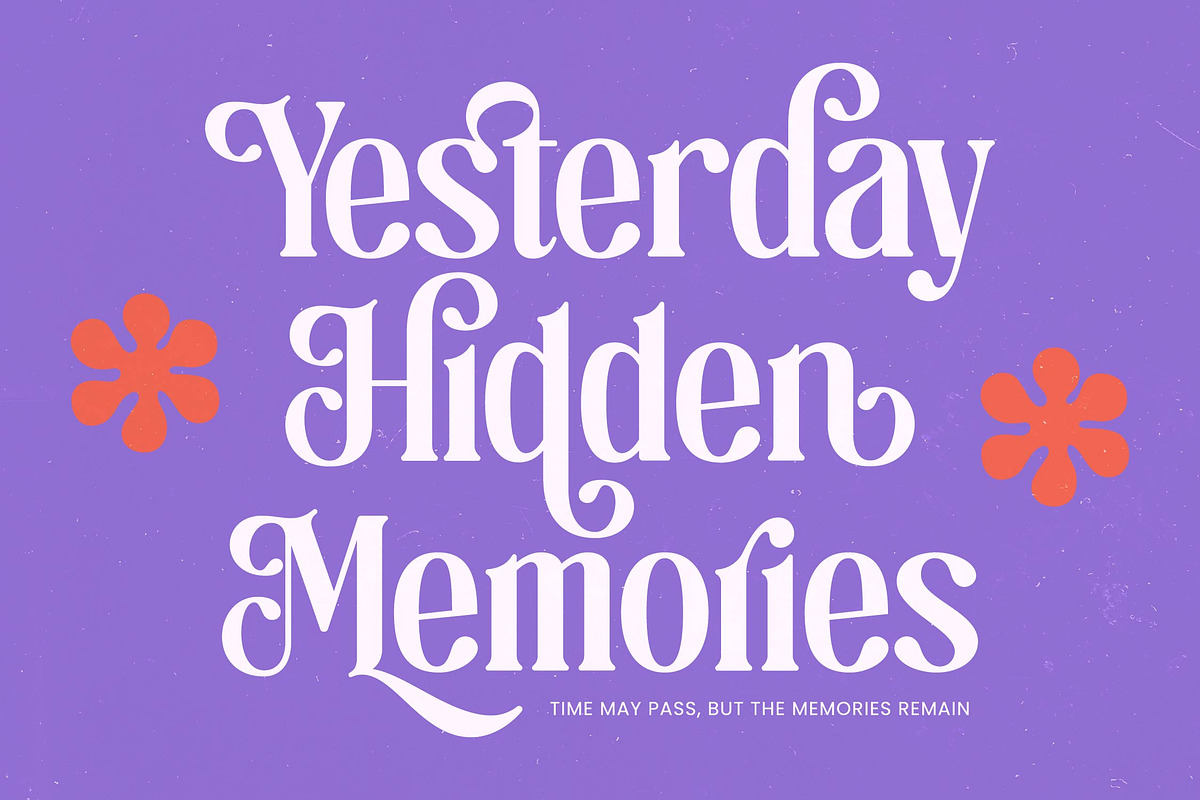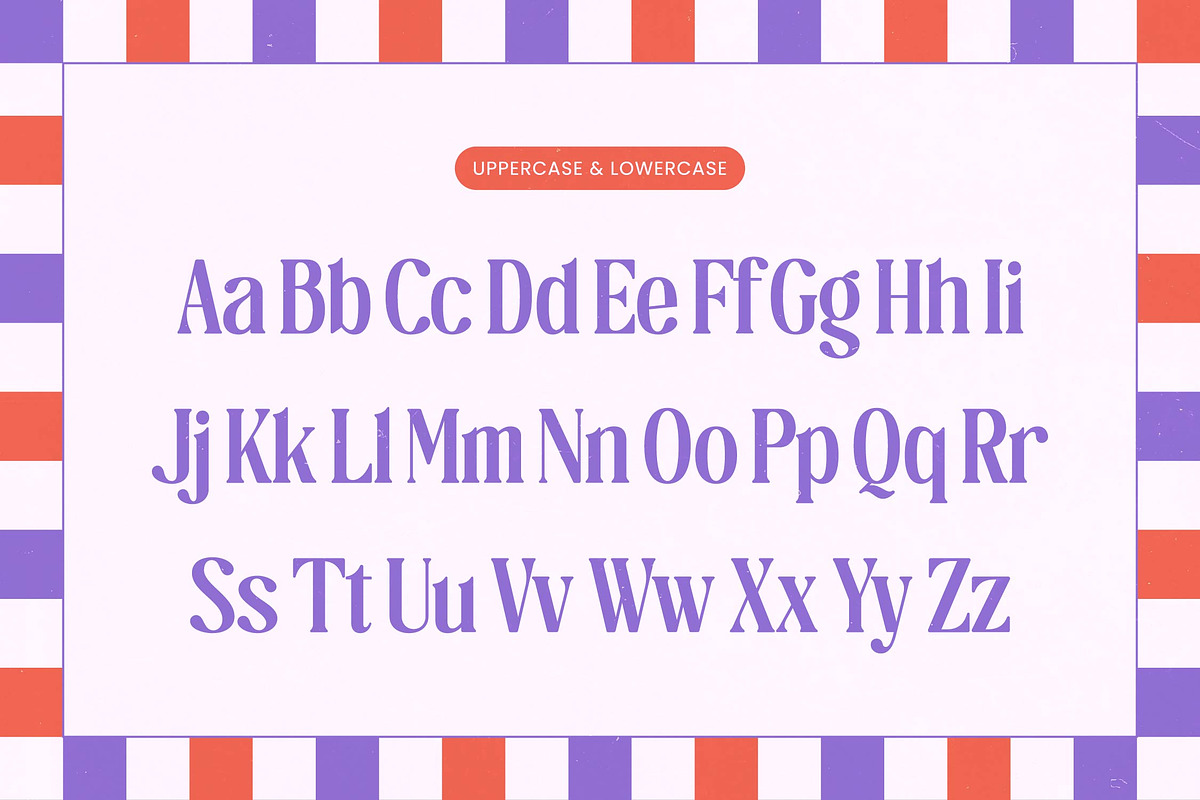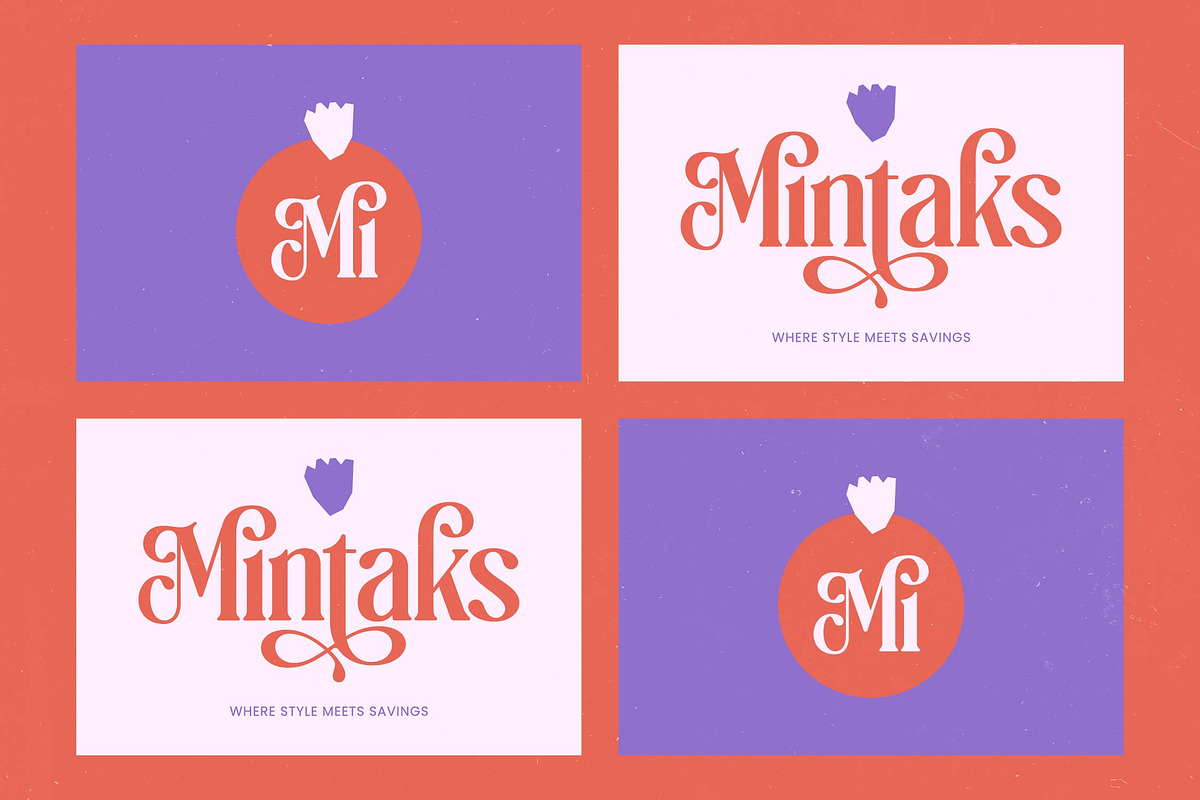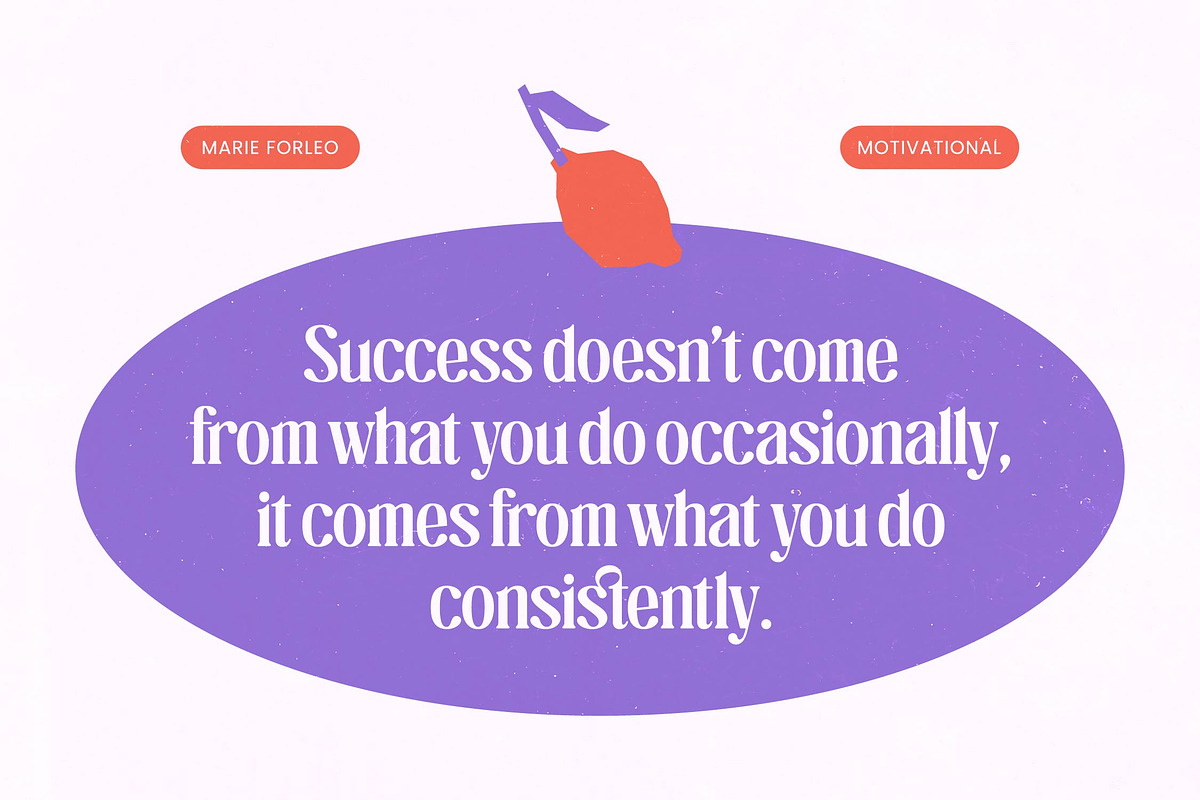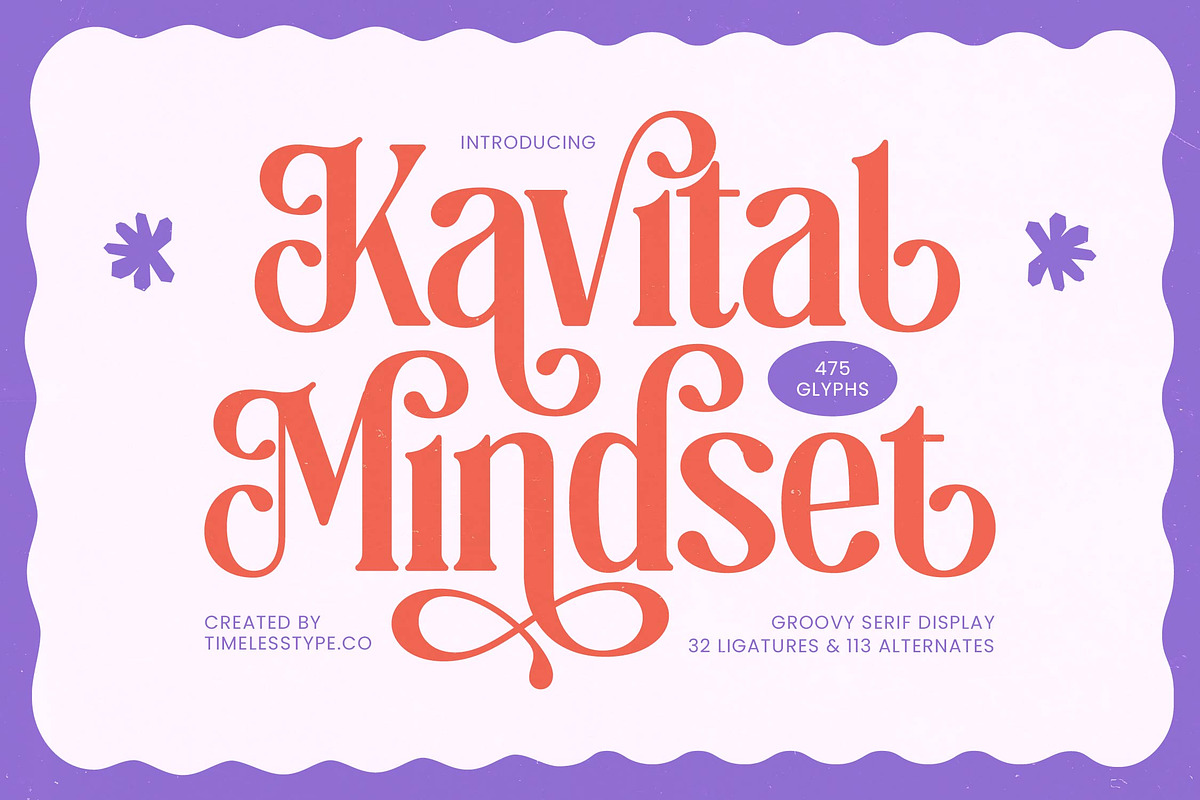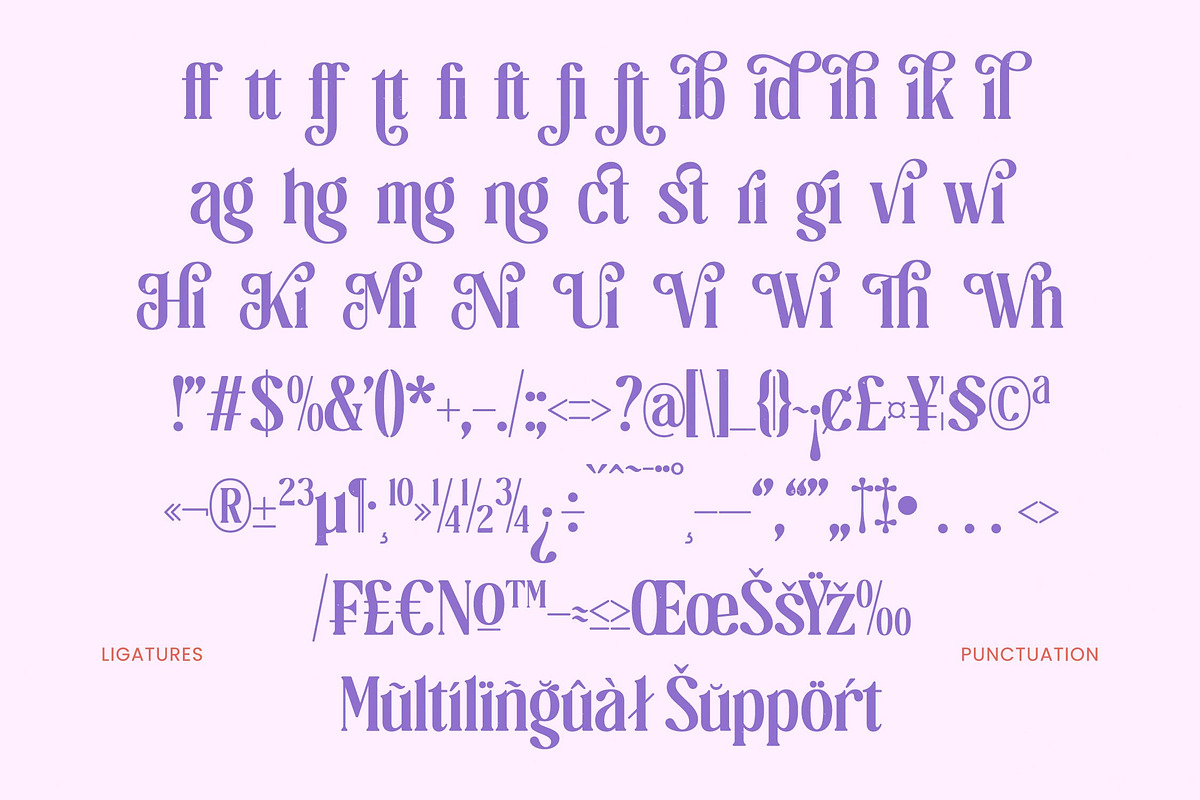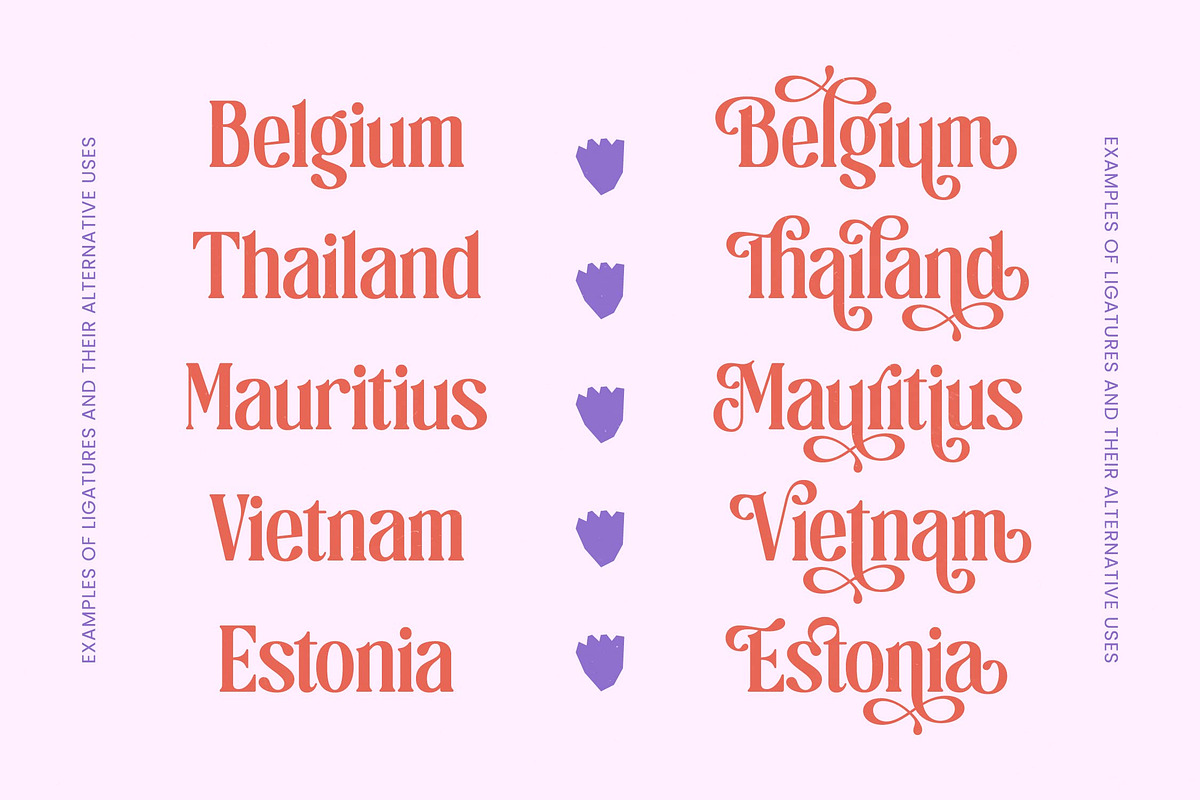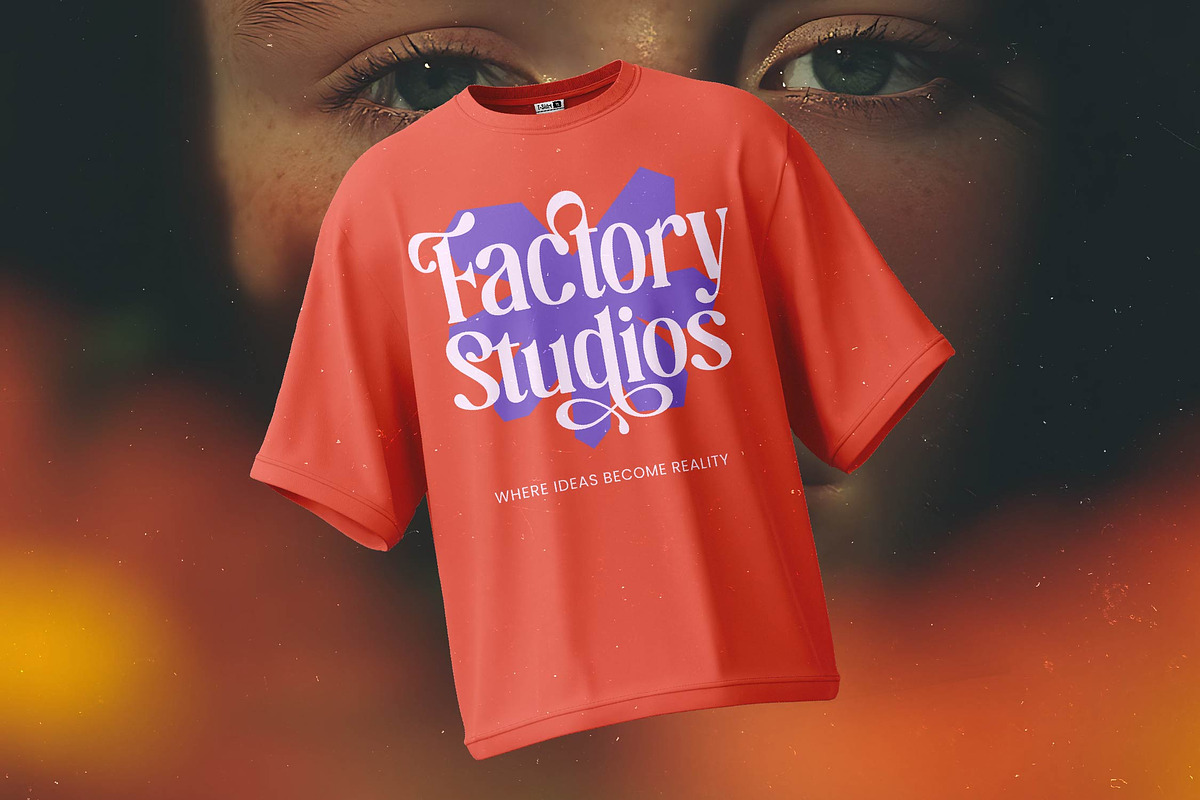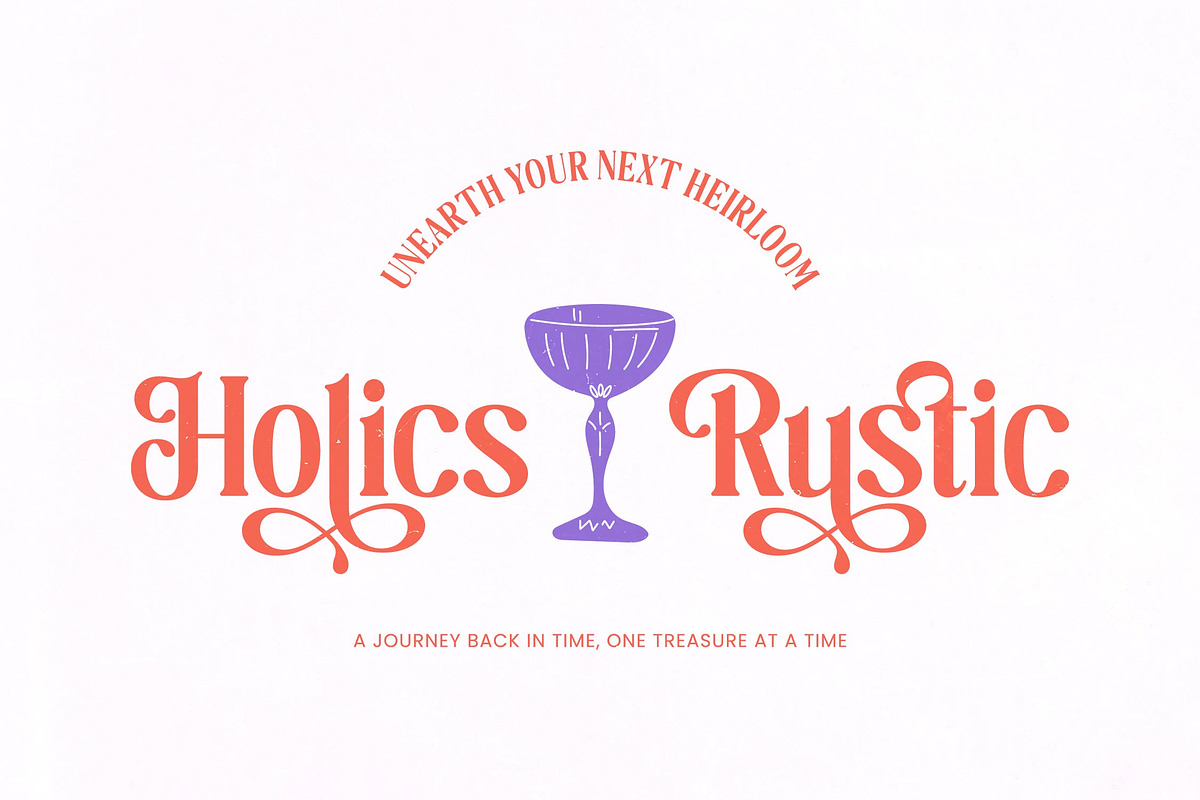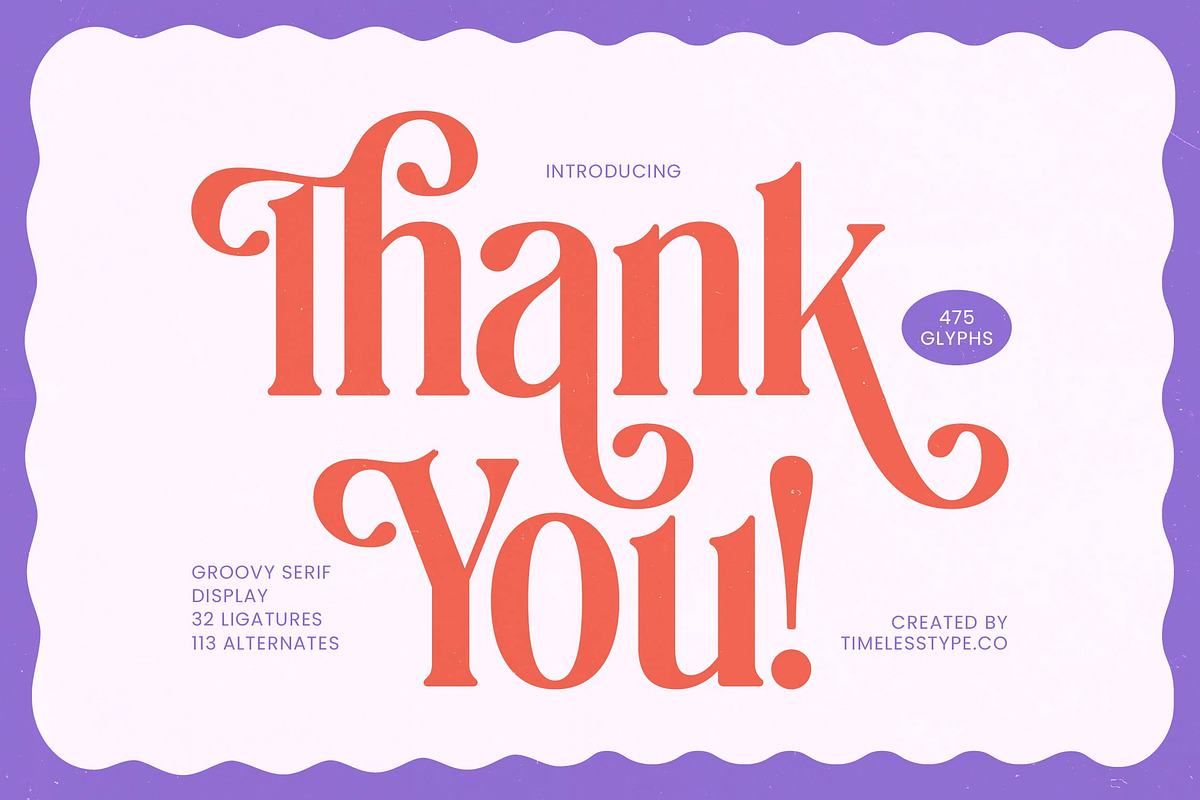
Kavital Mindset Groovy Serif
Elevate your creative vision with Kavital Mindset, a font that weaves nostalgic charm with a contemporary edge. It is the perfect statement piece for designers seeking a balance between expressive artistry and refined legibility.
Inspired by the fluid, rhythmic energy of the 1970s, this typeface captures the essence of a bygone era reimagined for today's digital landscape. Its organic curves and rhythmic strokes evoke a sense of freedom and sophisticated playfulness.
As a modern serif display, this typeface commands attention through its luxury typography aesthetics and striking high-contrast serif details. It functions as a powerful editorial font designed to deliver maximum branding impact in every character.
Staying ahead of the modern serif trend, this typeface fulfills the growing demand for editorial display fonts that offer more than just basic text. It embraces character-driven typography to ensure your projects stand out in a saturated market.
This versatile typeface is an ideal choice for high-end logo design, cohesive corporate branding, and sophisticated editorial layouts. Whether you are crafting luxury packaging, timeless wedding invitations, or bold fashion lookbooks, it adapts seamlessly to your needs.
With a robust set of 475 glyphs, you gain access to exquisite ligatures and creative alternates that allow for custom compositions. The inclusion of decorative swashes and full multilingual support for international characters makes it a comprehensive tool for global design work.
Ligatures and Alternative Style Stylistic Set